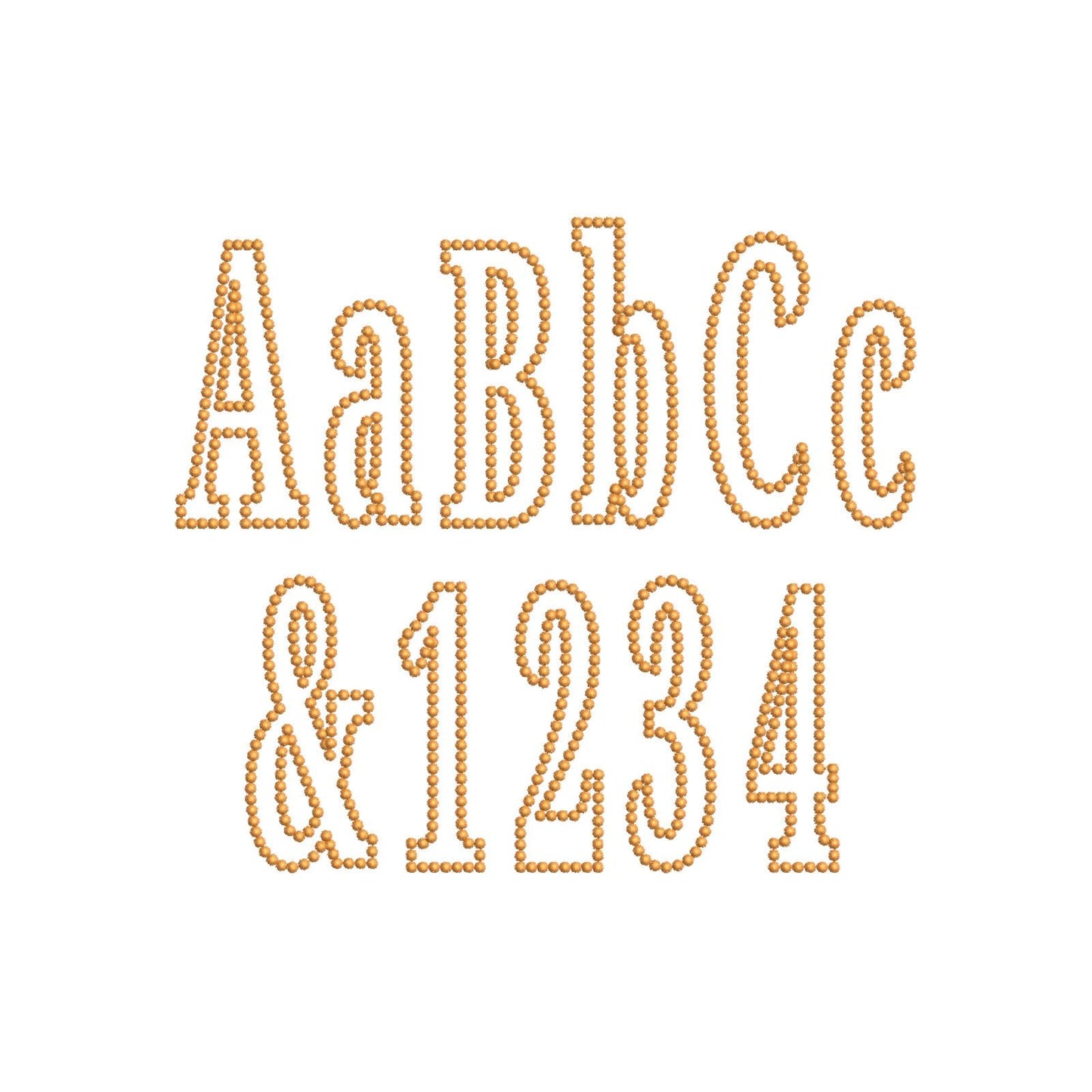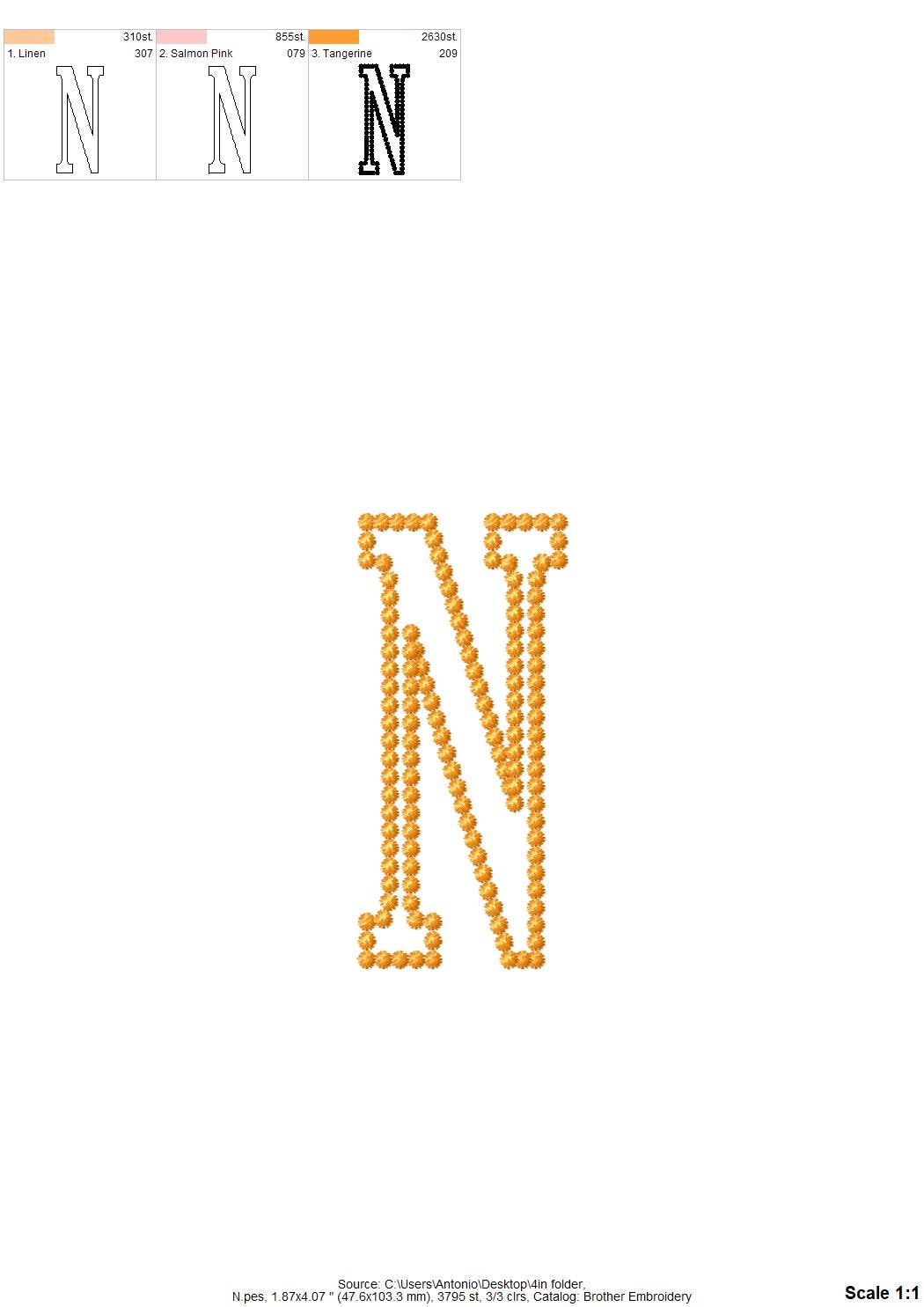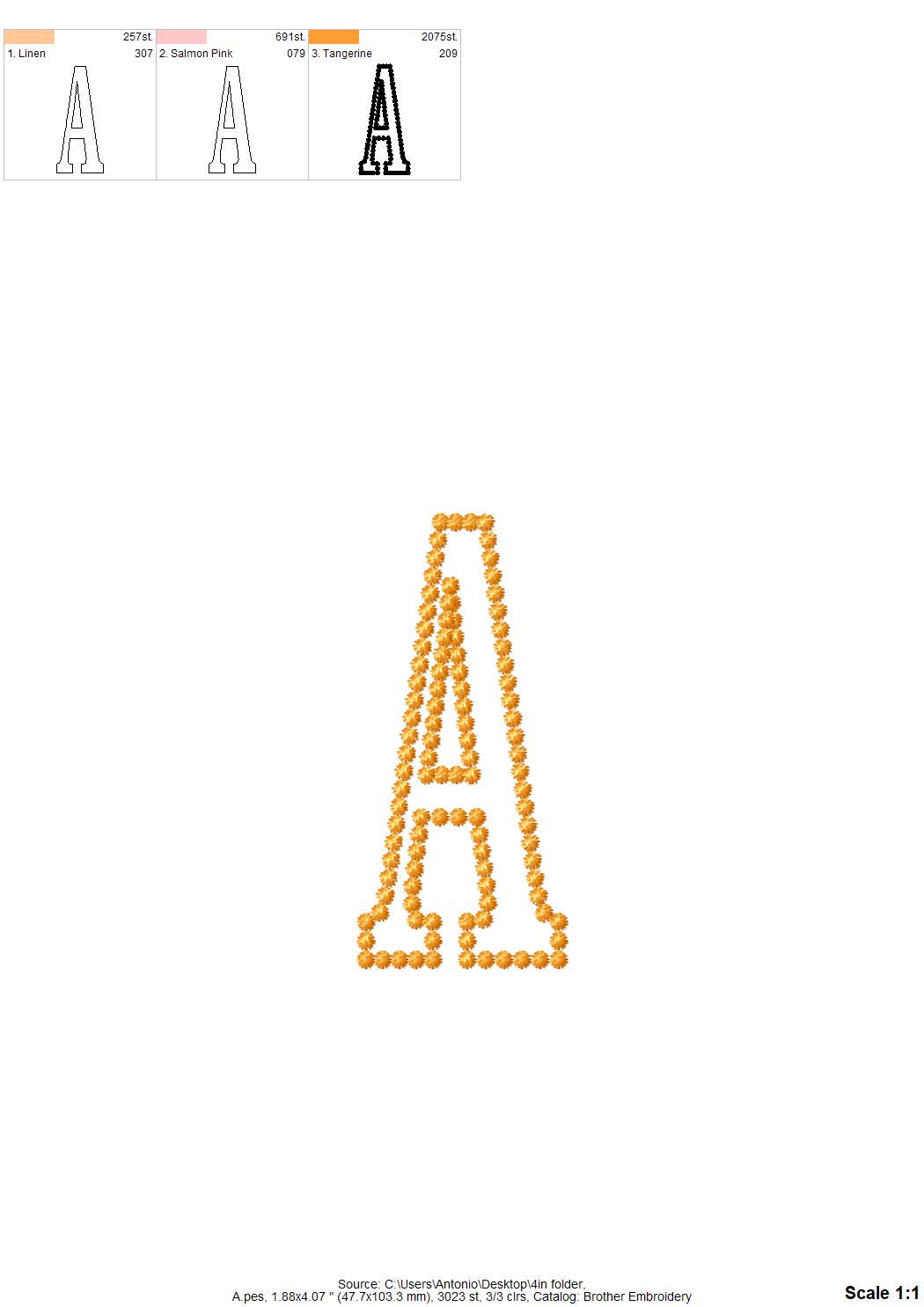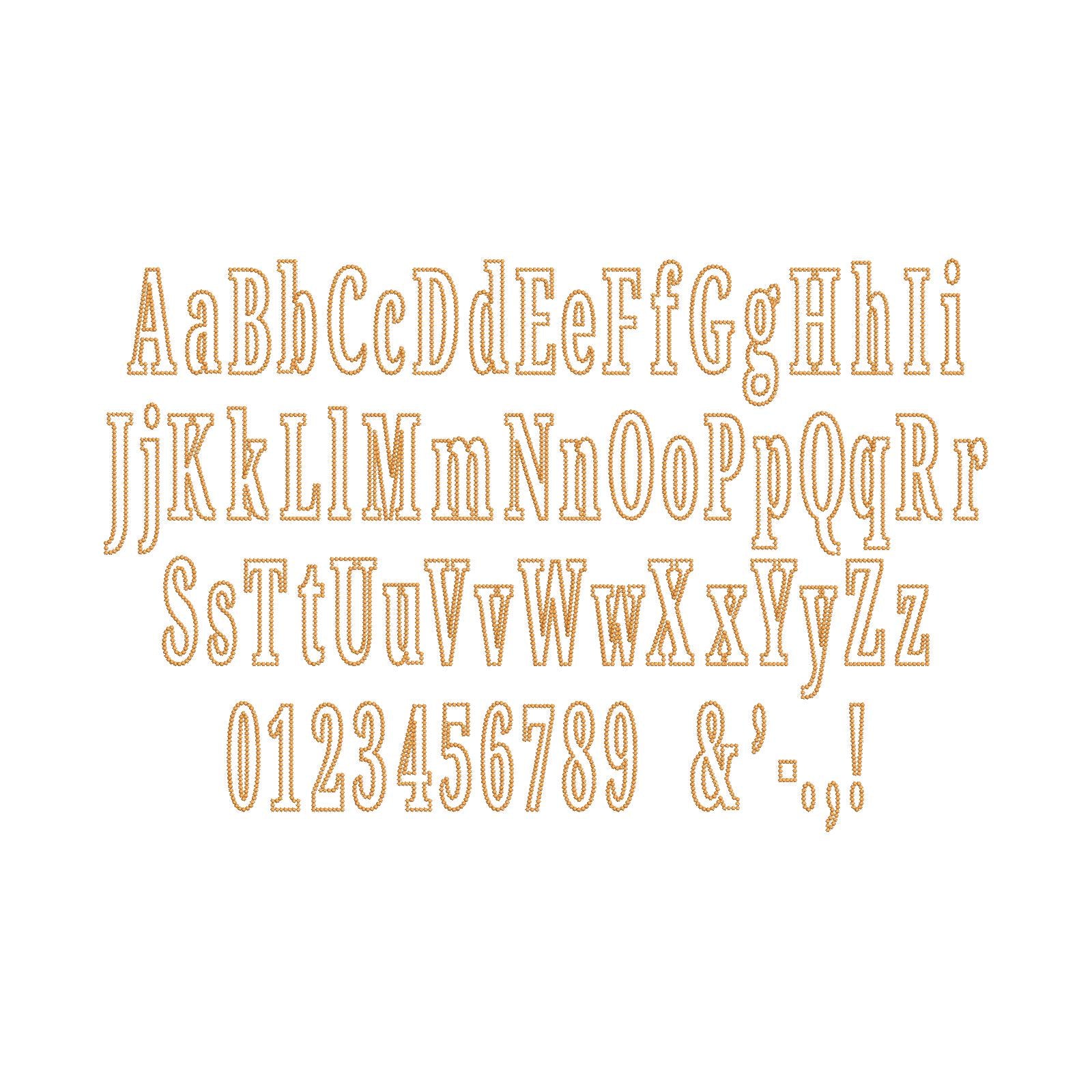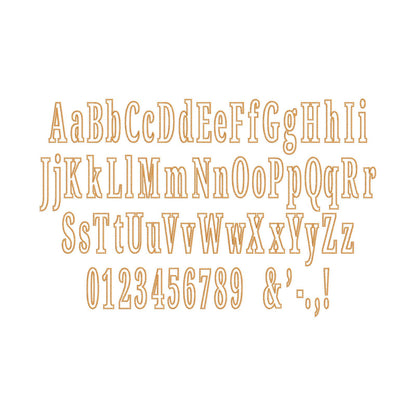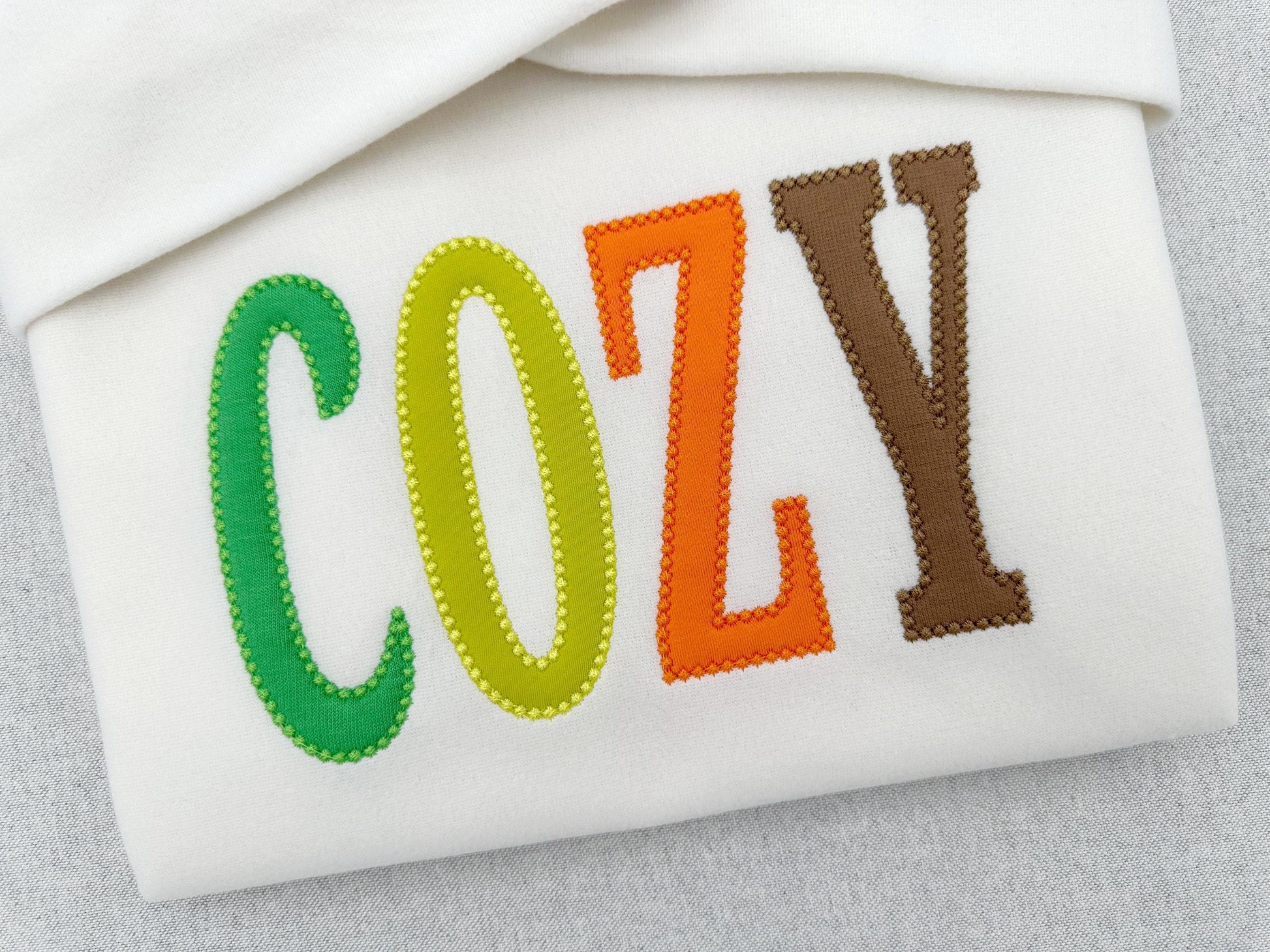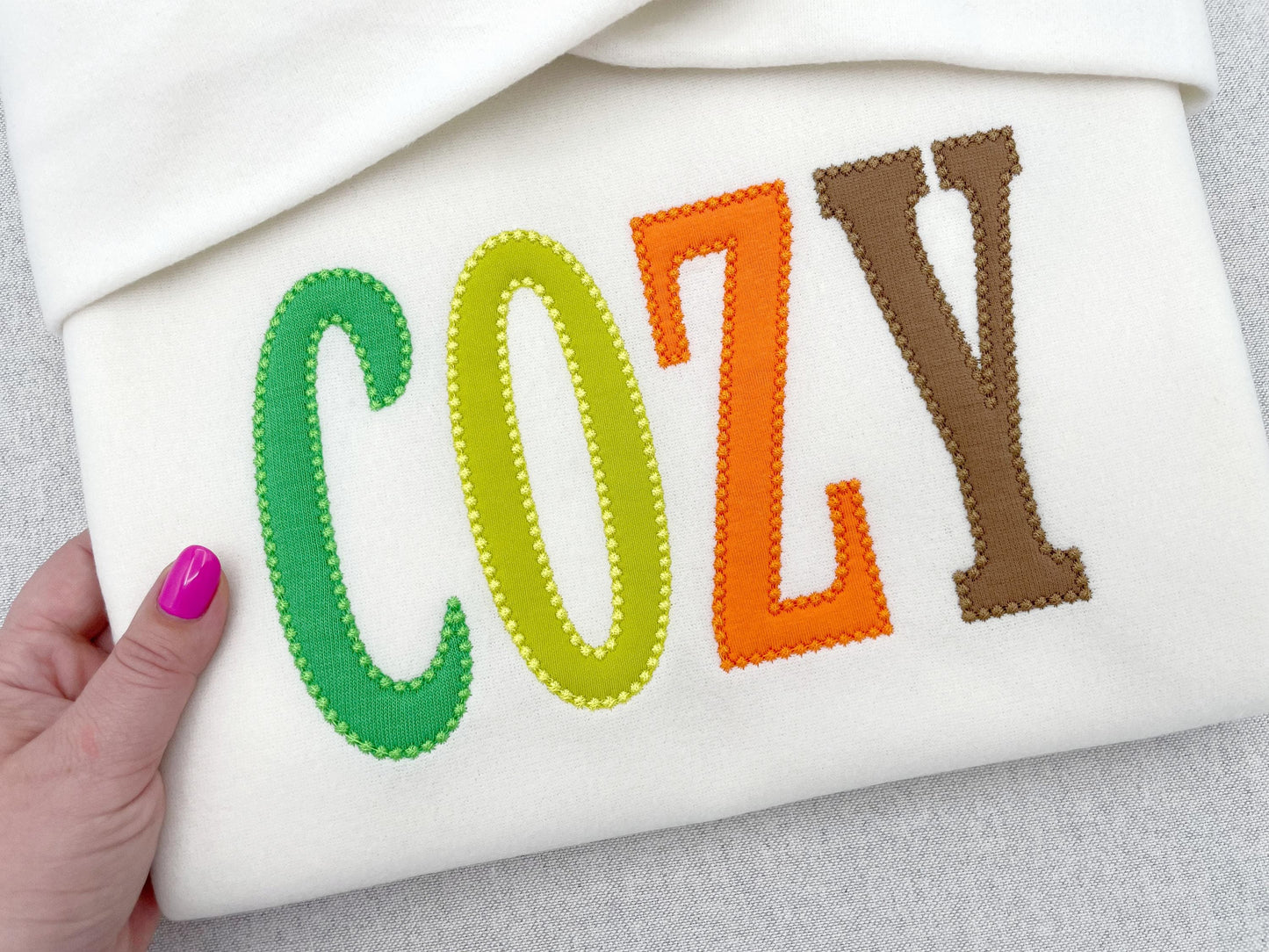
Collegiate Narrow Font Nova
The letters come in six sizes: 3, 3.7, 4, 4.5, 5.5 and 6.5 inches. Narrow block applique letters finished with a pearl stitch outline. Includes uppercase and lowercase letters, numbers 0 to 9 and punctuation.
- Narrow collegiate applique font, pearl stitch outline